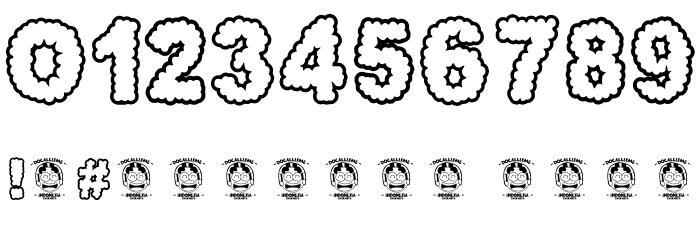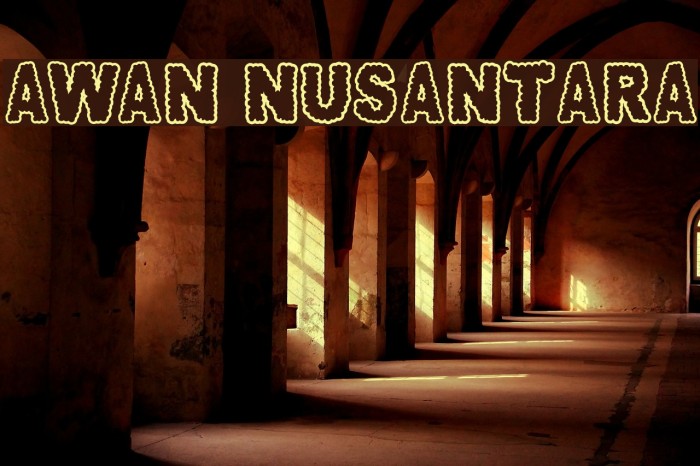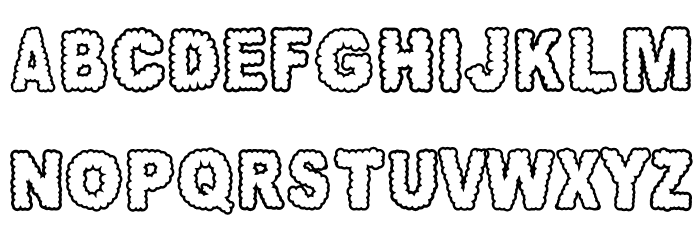
AWAN NUSANTARA Font
AWAN NUSANTARA Description
This playful and decorative font features bold, cloud-like outlines that give each character a fluffy, whimsical appearance. The uppercase and lowercase letters maintain a consistent style, with rounded edges and a bubbly form that adds a sense of fun and creativity. The numbers and special characters follow the same design, ensuring a cohesive look across all elements. This font's unique style makes it stand out, perfect for projects that require a touch of lightheartedness and imagination.
A playful, cloud-like decorative font with bold, rounded outlines from Uncategorized fonts.
- Overall Style: Playful, Whimsical